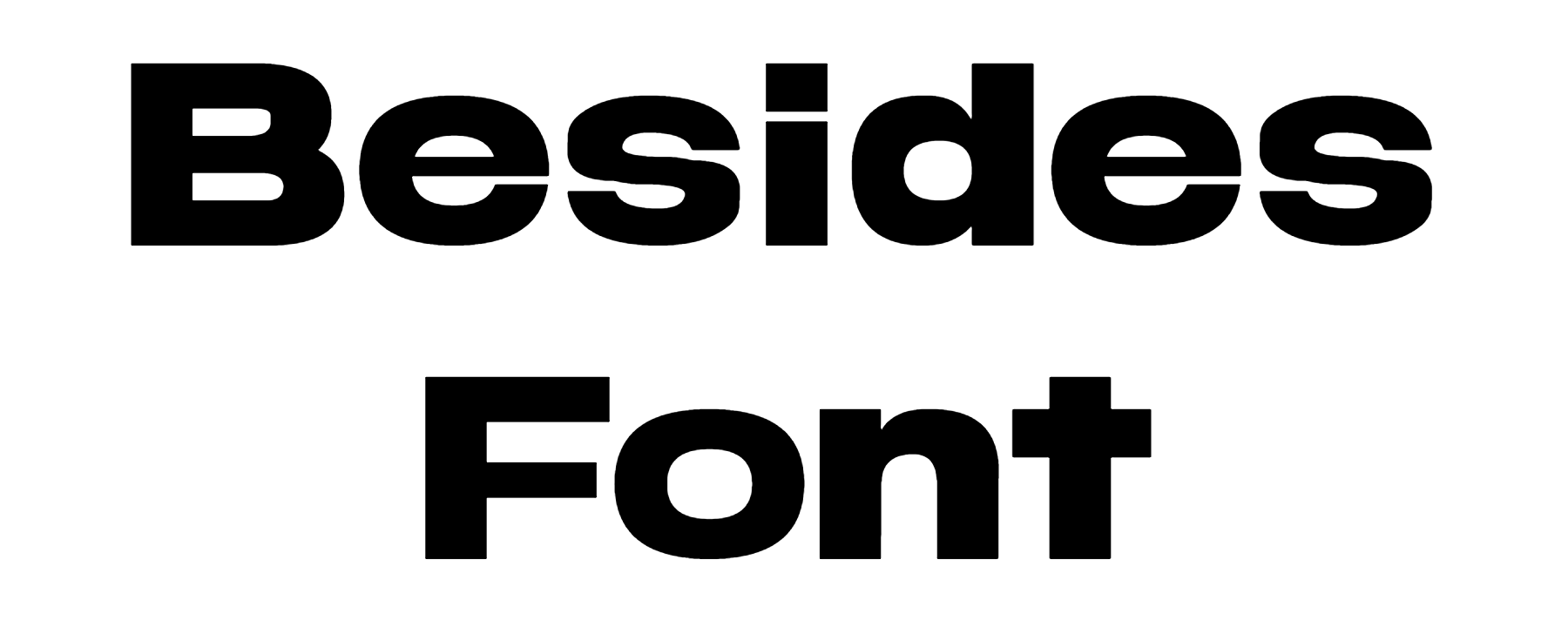
Besides
Besides is a sans serif font created by Muhamad Fikry Nuralif and released through Fikryal Studio (2024). Simple, open letter shapes keep it easy to read at almost any size, from app buttons to big headlines. You can download it for free and test it with your own words in the preview above.
What You Can Type With Besides
You get every letter from A to Z in both cases and all the numbers from 0 to 9, which means Besides can handle full sentences, dates and prices. Everyday marks like &, !, ? and @ are there too. Thanks to its accented letters, it also works for Spanish, French, German, Portuguese and Italian, not just English.
Where Besides Works Best
Think of Besides for websites, app screens and clean logos. Its lowercase letters are tall compared to the capitals, which keeps it readable at smaller sizes. It works for headings and body text alike. If the download has several weights, use a heavier one for titles and a lighter one for paragraphs.
Who designed Besides font?
Does Besides support accented letters?
Yes. Besides includes the accented letters needed for Spanish, French, German, Portuguese and Italian, so it works for more than just English.